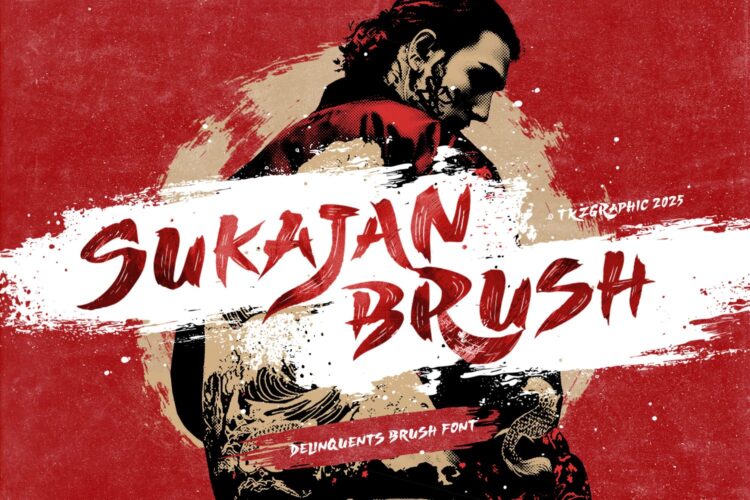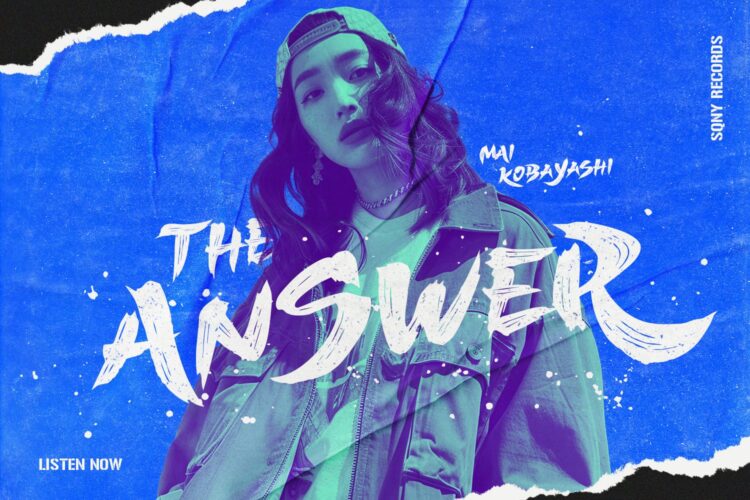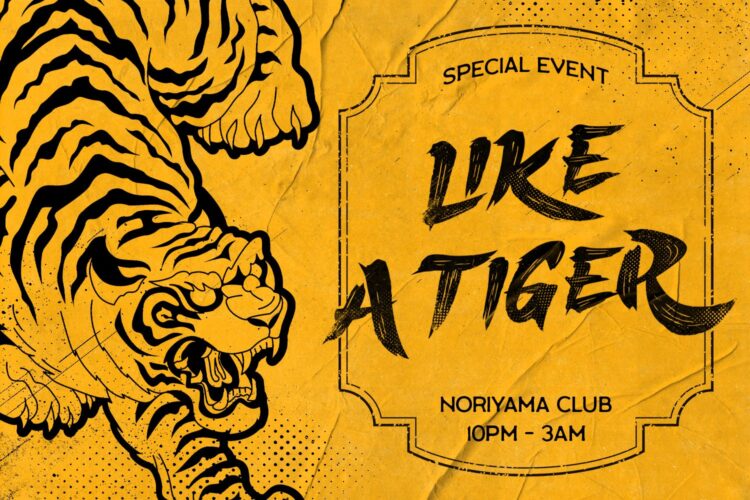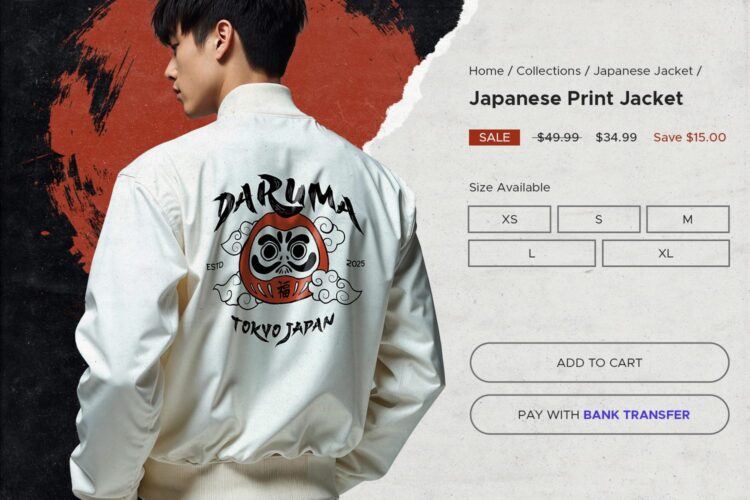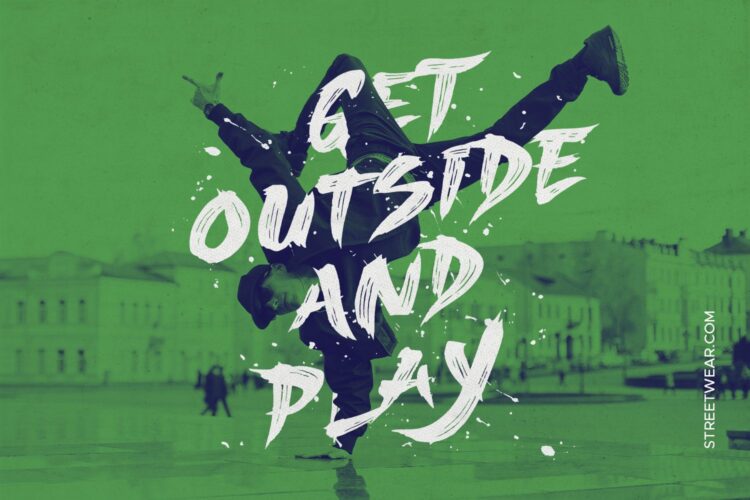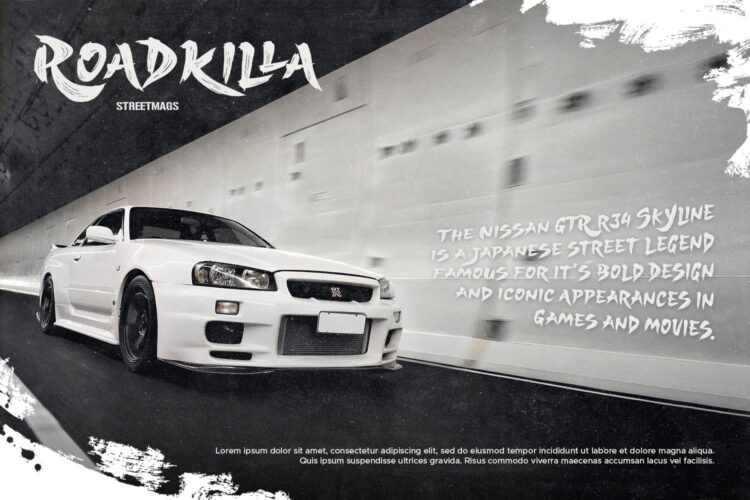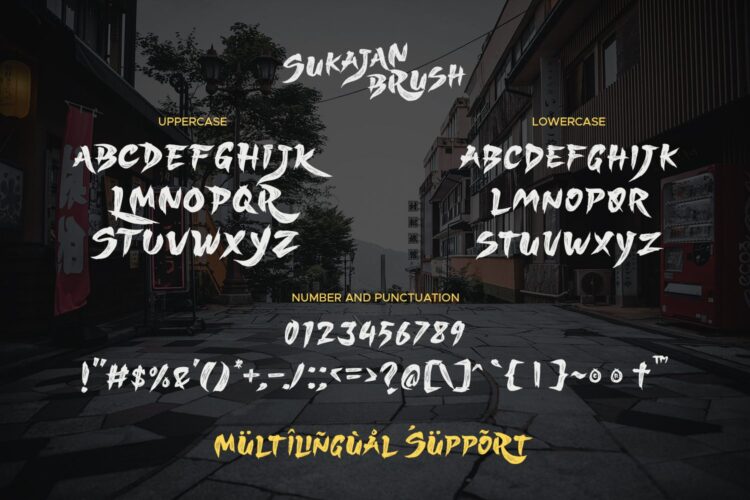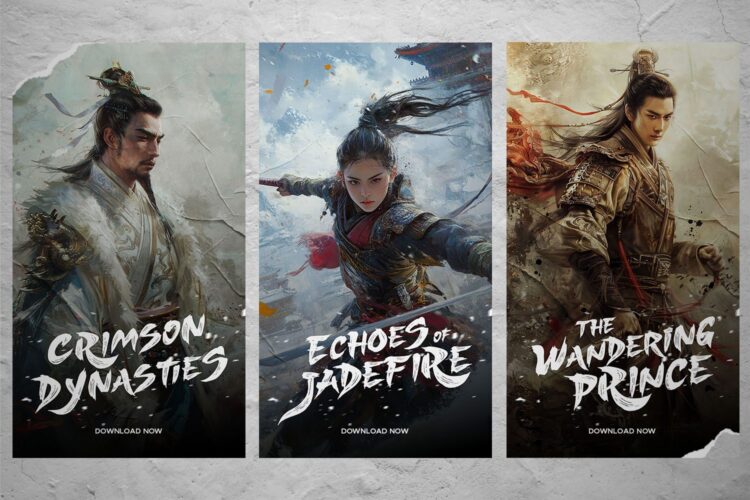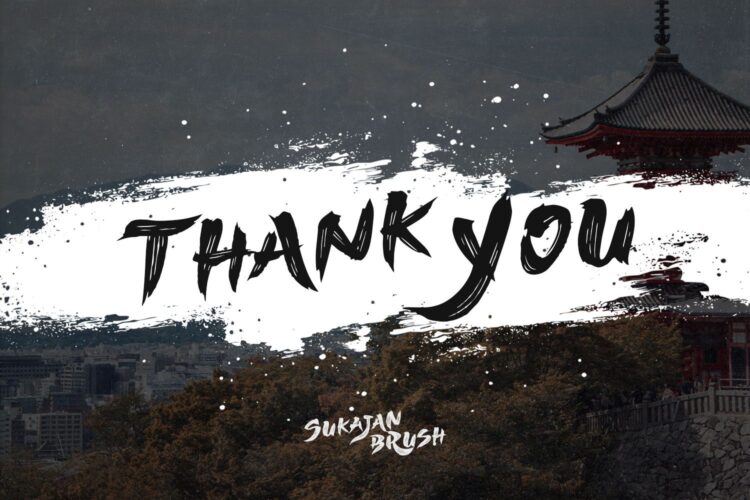
Sukajan Brush is a striking all-caps brush font with alternate letters that can be toggled via Caps Lock. Inspired by Japan’s rebellious streetwear and traditional calligraphy, its rugged strokes speak of delinquents and the natural flow of Asian brush techniques, making it perfect for eye-catching logos, bold posters, movie or game titles, book designs, branding materials, and creative projects that blend personality with tradition.